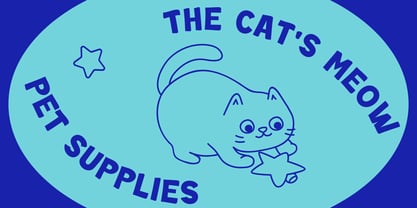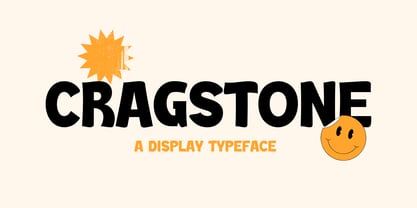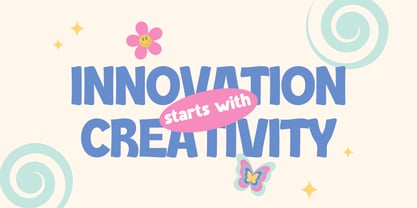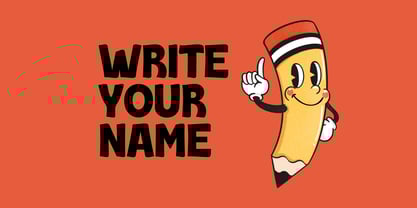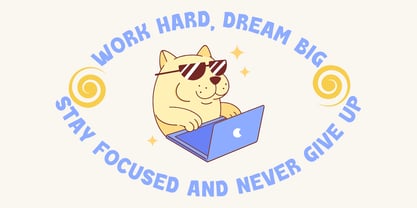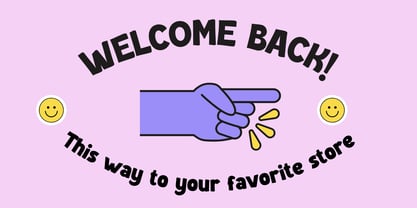
Cragstone
by Beary
The Cragstone Font Family was designed by Dian Haniffan Hadi and published by Beary. Cragstone contains 1 styles. More about this family
Cragstone is a striking display typeface designed to leave a lasting impression. With its bold and unique letterforms, Cragstone exudes strength and character, making it perfect for headlines, posters, and branding that seek to capture attention.
Choose Cragstone to give your designs a powerful and captivating presence.